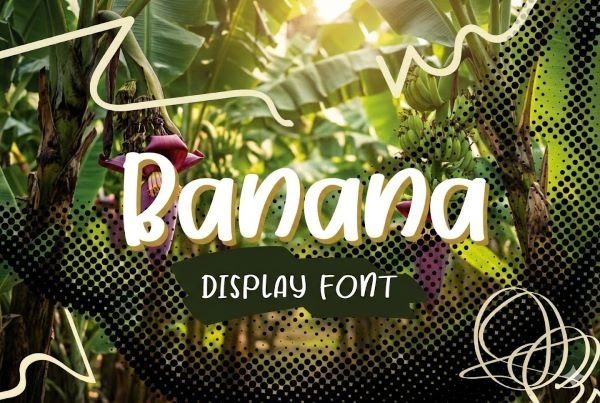
Banana Font
Banana Font by Pustudio is a hand-drawn display typeface where every wobbly curve and uneven stroke is the whole point. Warm, loose, and impossible to take too seriously, it’s a perfect food font for snack packaging, children’s books, social media graphics, and any project that values personality over precision.
Style: Handwritten, Casual, Playful, Comic